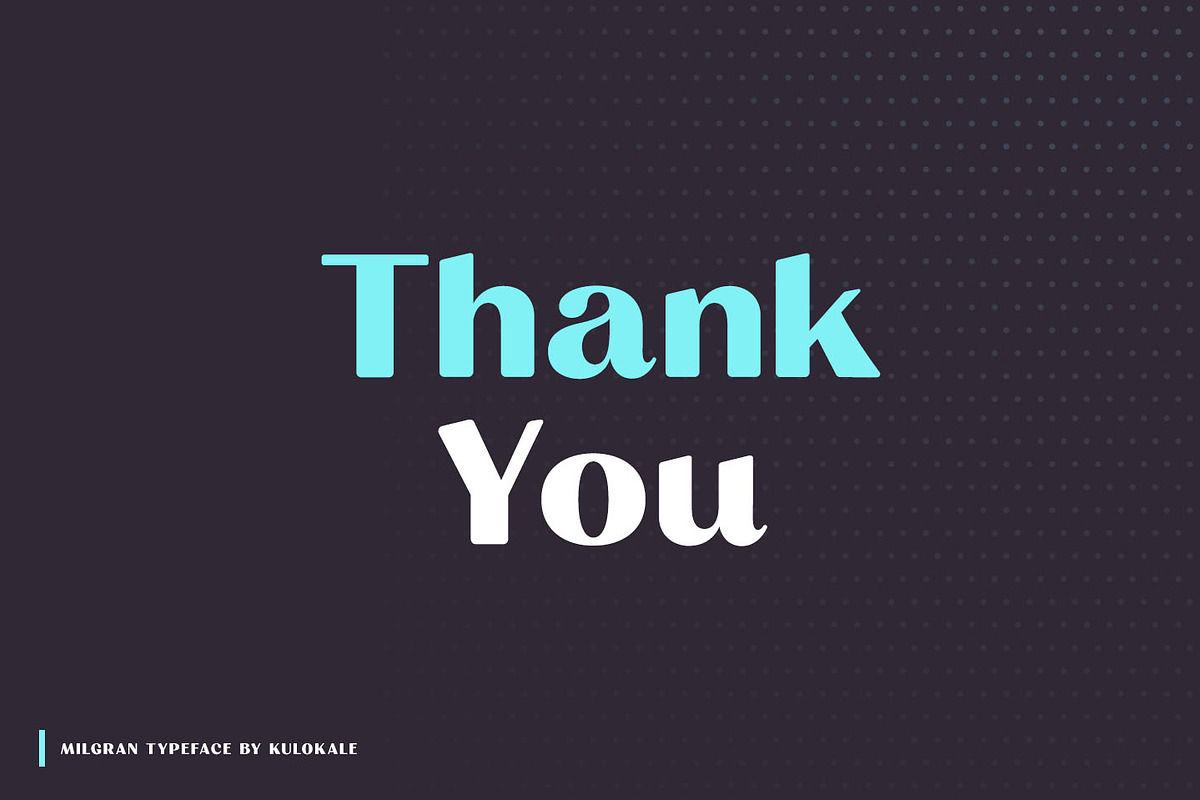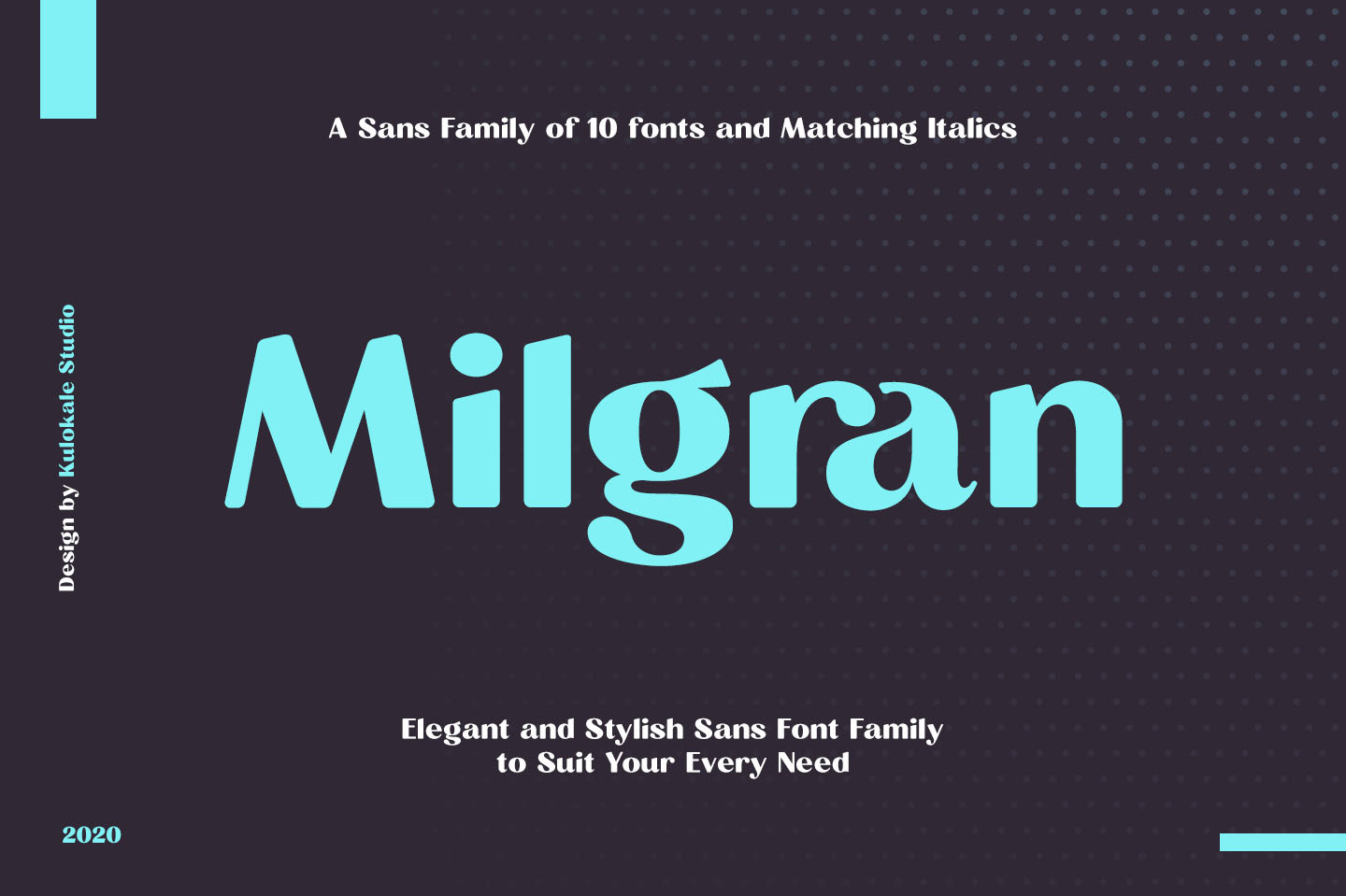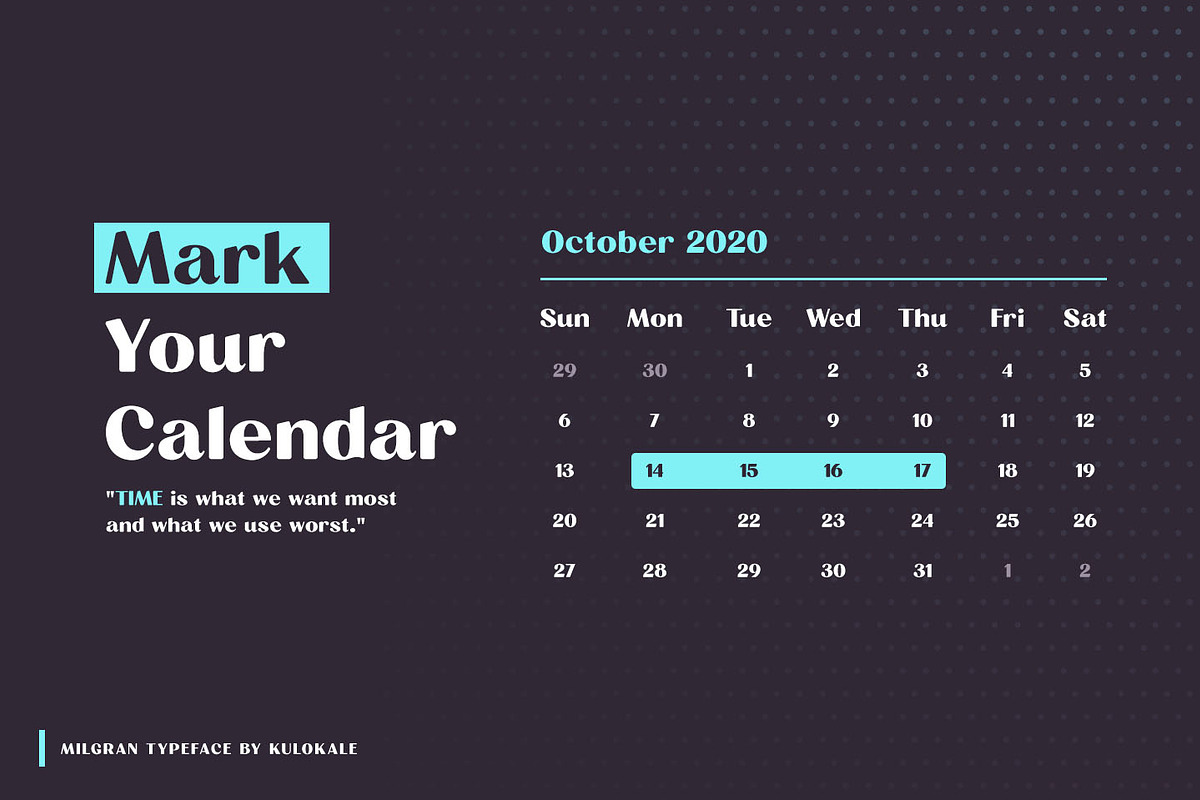
Milgran Sans Font Family
Milgran is a modern and elegant sans-serif font. Milgran is well-suited for advertising, branding, logotypes, packaging, titles, headlines and editorial design.
The font family includes 10 fonts and matching italics:
- Milgran Regular
- Milgran Condensed
- Milgran Semi Condensed
- Milgran Expanded
- Milgran Semi Expanded
- Milgran Italic
- Milgran Condensed Italic
- Milgran Semi Condensed Italic
- Milgran Expanded Italic
- Milgran Semi Expanded Italic